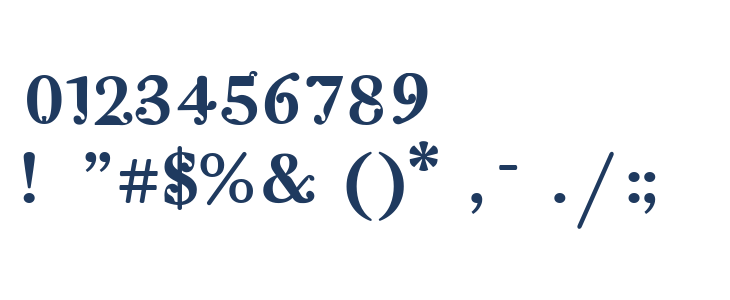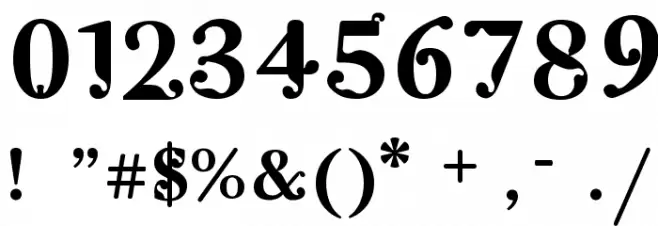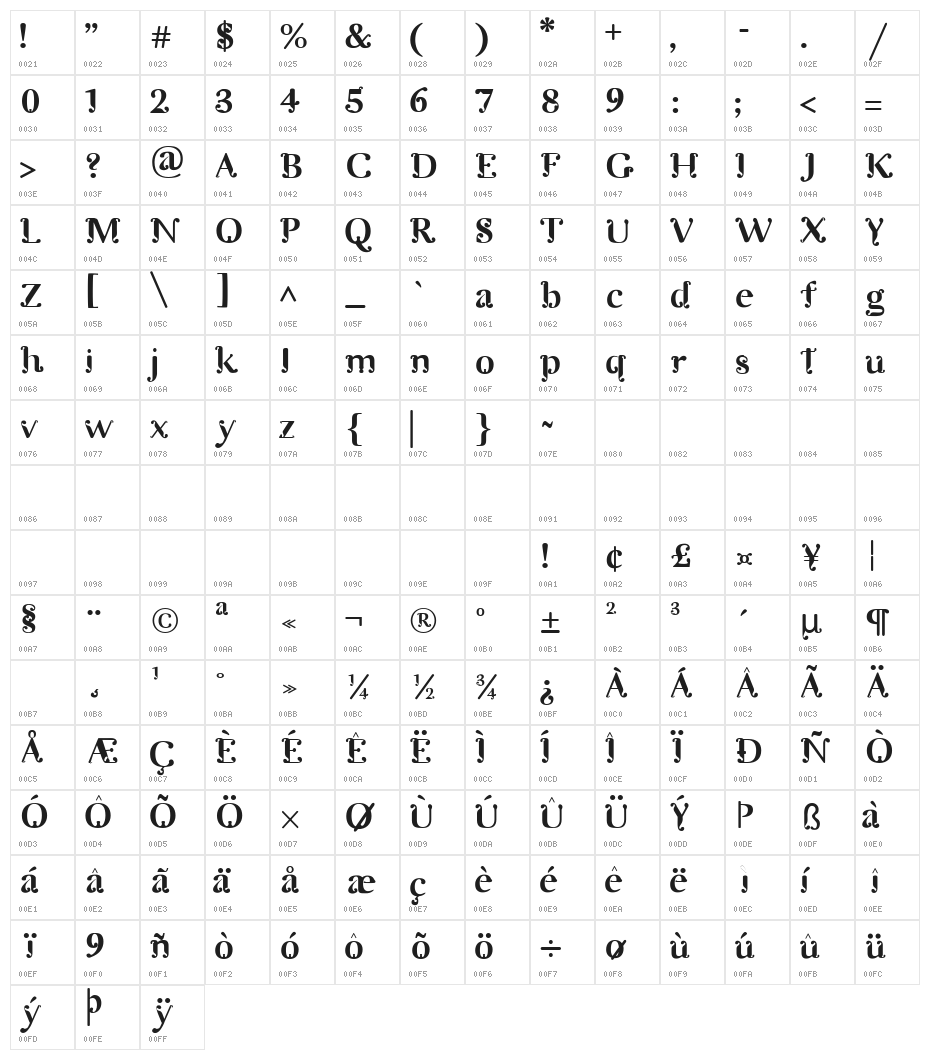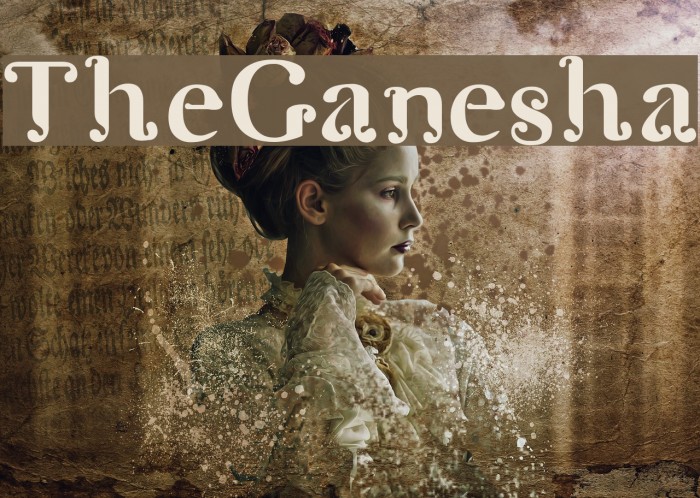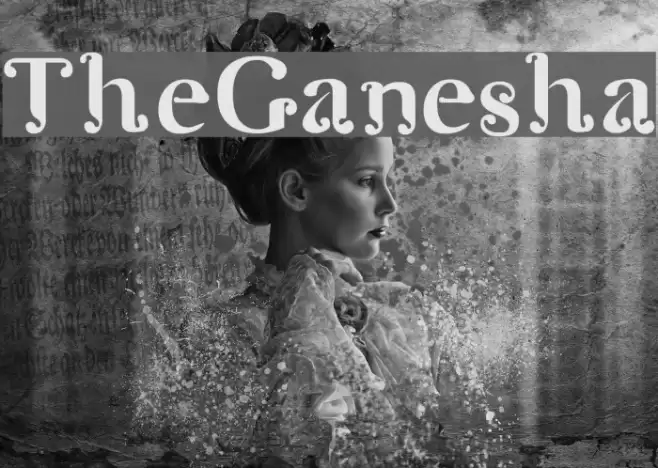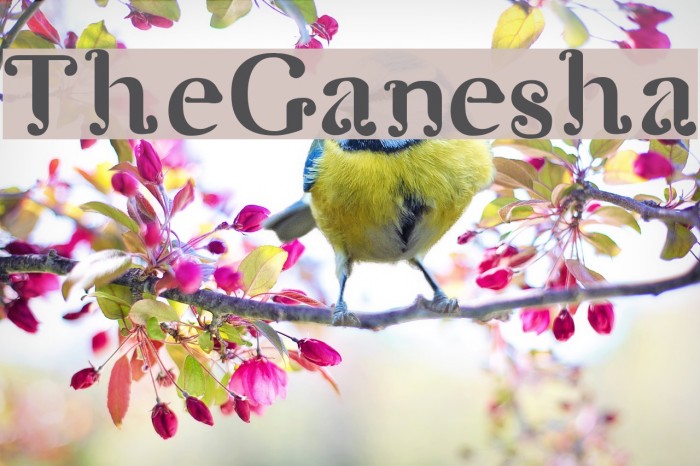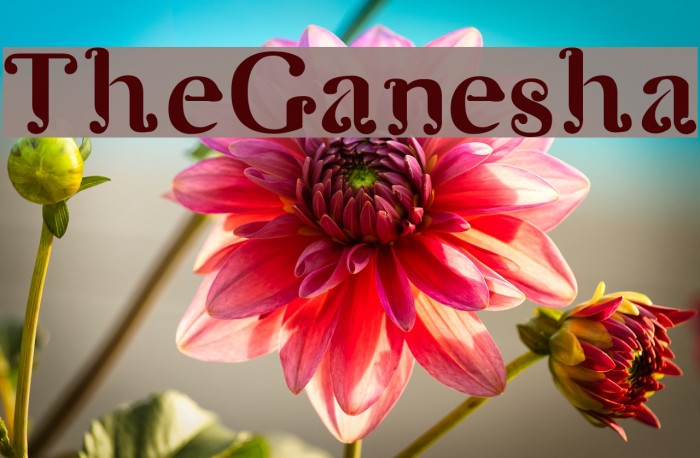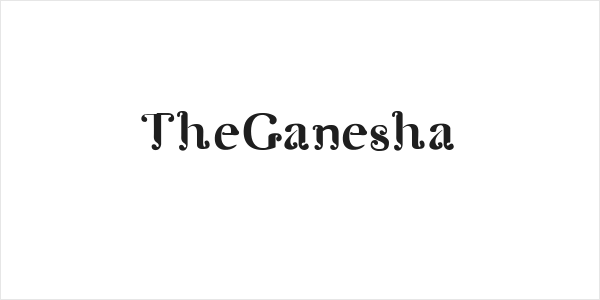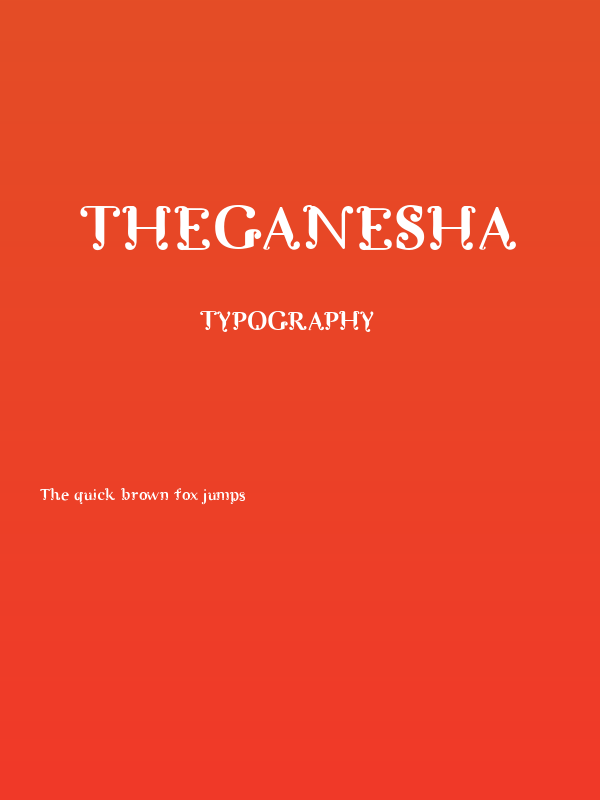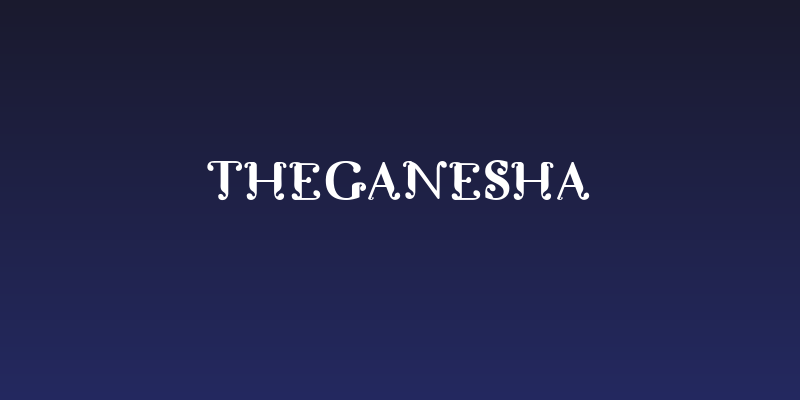
TheGanesha Font
TheGanesha Description
This font features a unique and decorative style with distinct ball terminals that add a playful and whimsical touch to each character. The uppercase letters are bold and prominent, while the lowercase letters maintain a consistent flow with slightly exaggerated curves. The numerals are well-balanced, matching the overall aesthetic of the alphabet. Special characters are designed with the same attention to detail, ensuring a cohesive look across all glyphs. The font's design is both eye-catching and versatile, making it suitable for a variety of creative applications.
| Proposed Projects | Ideal for branding, poster design, invitations, and any project requiring a touch of elegance and creativity. |